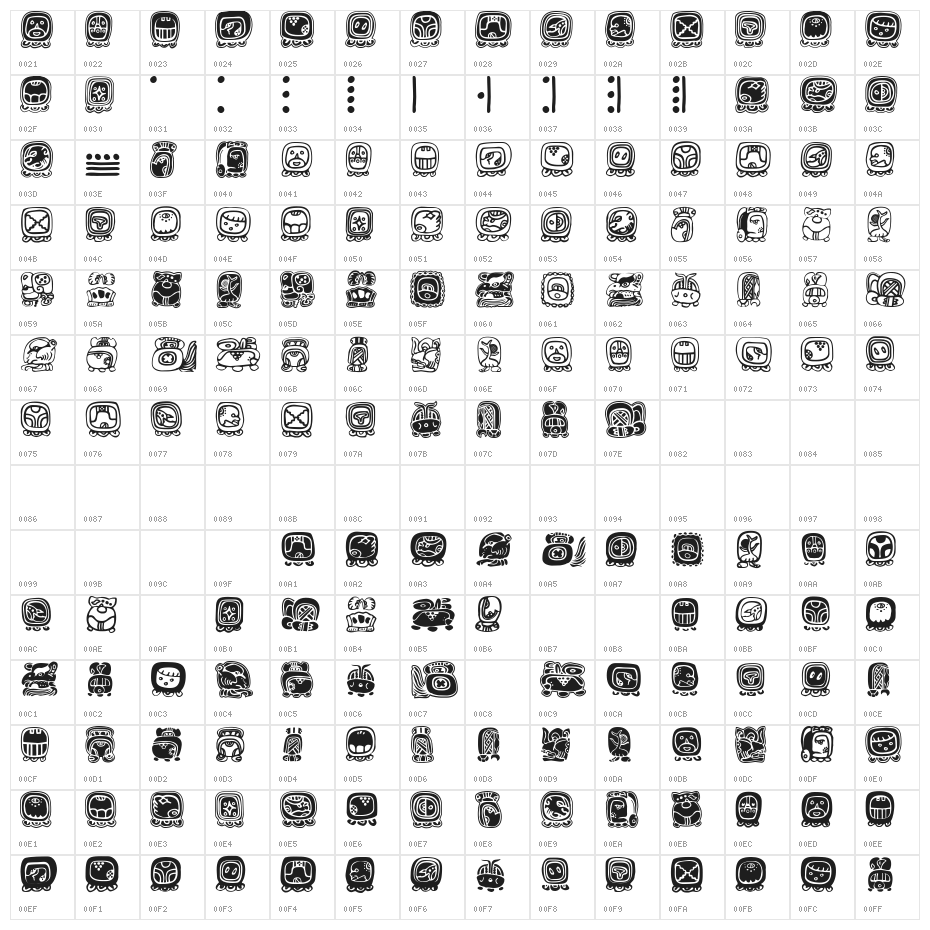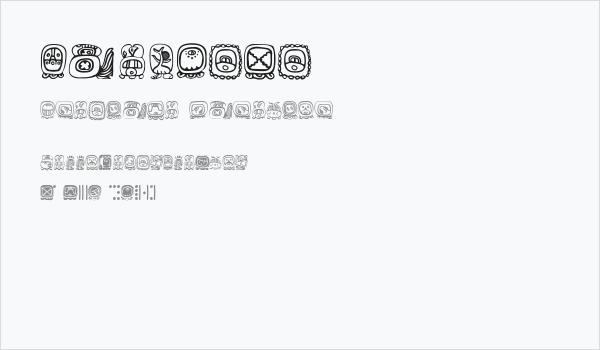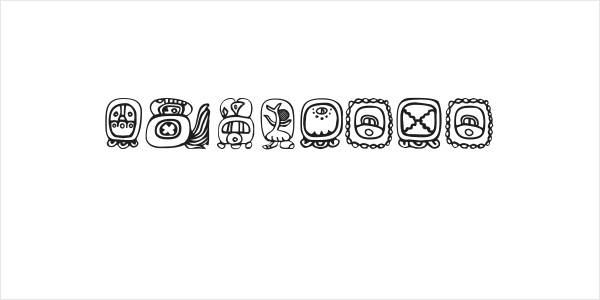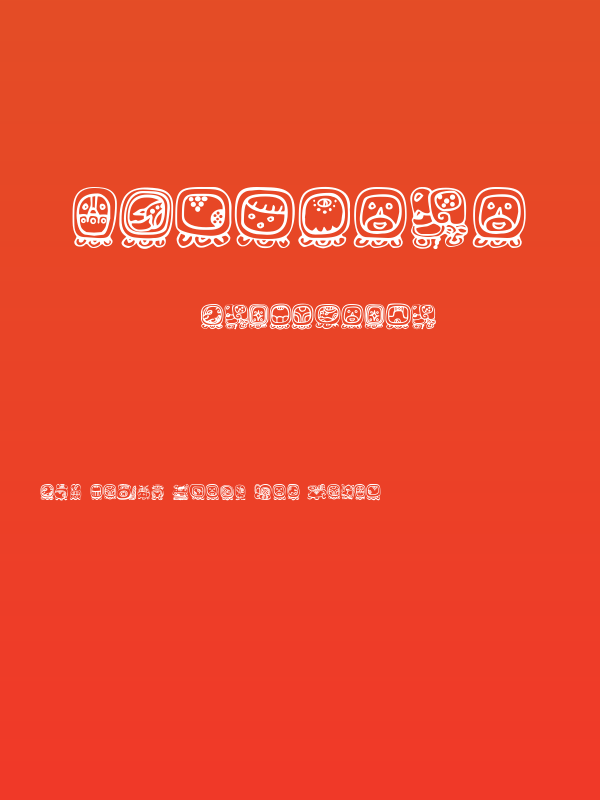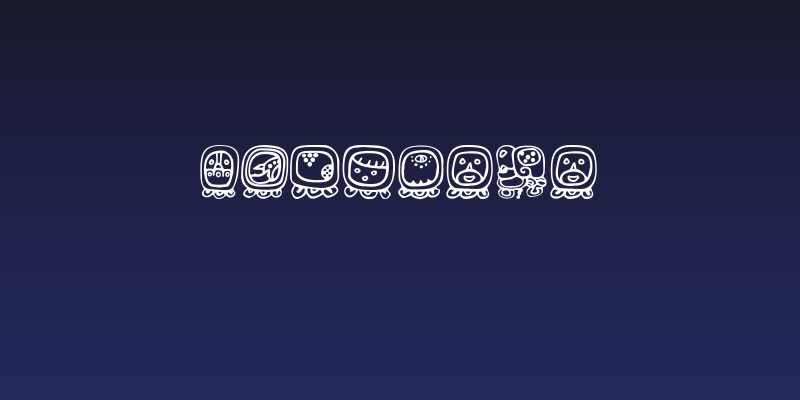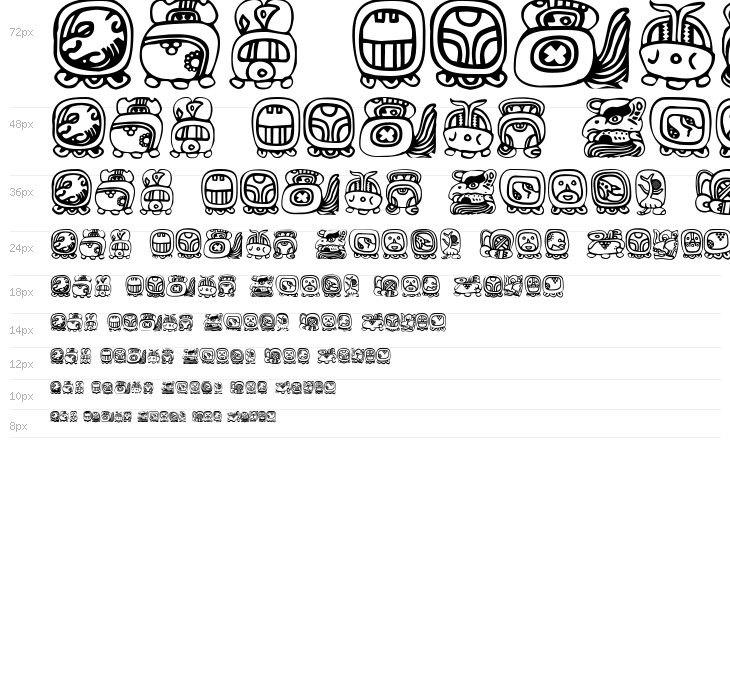
BienMaya Font
BienMaya Description
This design is a collection of intricate glyphs inspired by ancient Mayan script. Each character is a detailed and artistic representation, featuring complex patterns and symbolic imagery. The glyphs are enclosed within rounded rectangular frames, giving them a distinct and cohesive appearance. The style is highly decorative, with a focus on cultural and historical aesthetics. The characters are not uniform in shape or size, reflecting the organic and varied nature of traditional Mayan writing. This set includes a variety of symbols, each with unique elements that contribute to the overall theme of ancient civilization and artistry.
| Use Case | Logos, Cultural Exhibitions, Educational Materials |
| Proposed Projects | Ideal for projects related to historical themes, cultural exhibitions, educational materials on ancient civilizations, or artistic endeavors that require a unique and decorative script. |